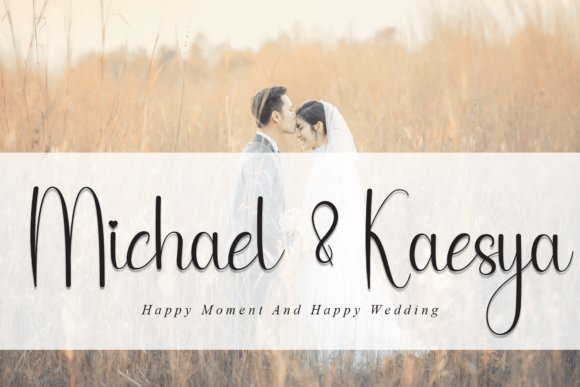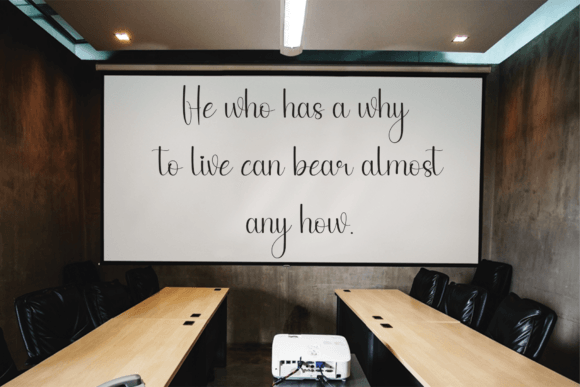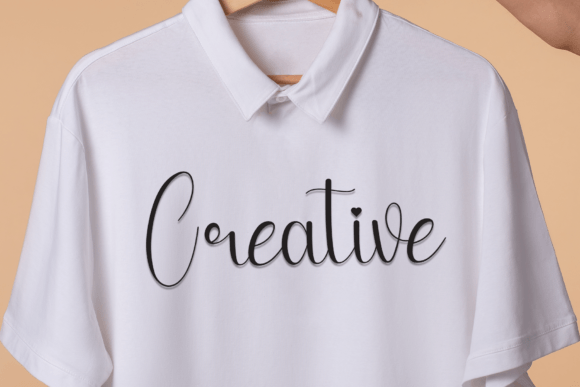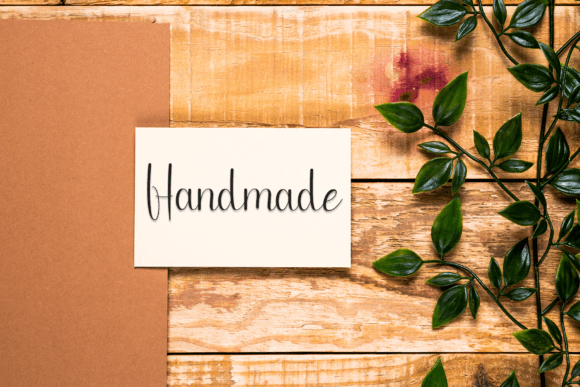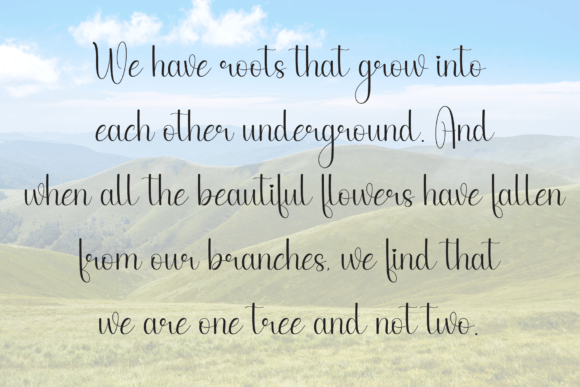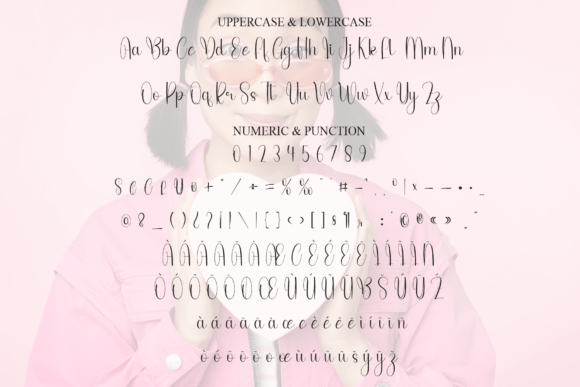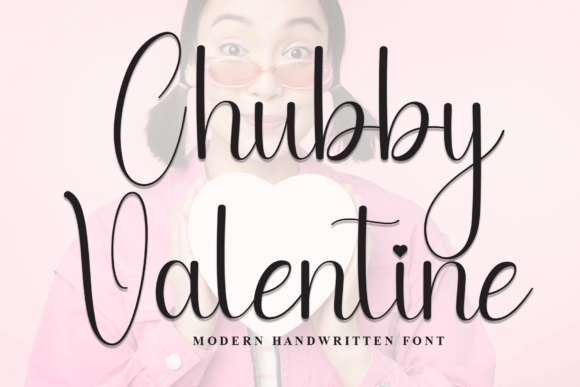
Introducing Chubby Valentine Font: The Epitome of Elegance and Charm
In the world of typography, few fonts manage to capture the essence of elegance and charm as effortlessly as the Chubby Valentine Font. This stylish handwritten script font has been making waves in the design community, and for good reason. Its fluid, graceful strokes exude a sense of sophistication and refinement, making it the perfect addition to any design project that requires a touch of class.
The Characteristics of Chubby Valentine Font
So, what sets Chubby Valentine Font apart from other fonts in its class? For starters, its smooth curves and natural flow create a timeless, refined look that is hard to achieve with more traditional fonts. The fluid strokes of Chubby Valentine Font give it a sense of movement and energy, making it perfect for designs that require a bit of dynamism.
Another key characteristic of Chubby Valentine Font is its versatility. Whether you’re working on a branding project, creating invitations, or designing stationery, this font is sure to impress. Its elegant and charming aesthetic makes it suitable for a wide range of applications, from formal events to more casual designs.
Perfect for Branding, Invitations, and Stationery
Chubby Valentine Font is particularly well-suited for branding projects, as it adds a personal and sophisticated touch to any logo or design. Its unique and stylish aesthetic helps to create a lasting impression, making it perfect for businesses looking to establish a strong brand identity.
When it comes to invitations and stationery, Chubby Valentine Font is equally at home. Its elegant and refined aesthetic makes it perfect for formal events, such as weddings and galas, while its more playful and charming side makes it suitable for more casual gatherings and celebrations.
Why Designers and Crafters Love Chubby Valentine Font
So, why have designers and crafters fallen in love with Chubby Valentine Font? For one, its unique and stylish aesthetic makes it a standout in a sea of more traditional fonts. Its versatility and range also make it a favorite among designers, who appreciate the ability to use it in a wide range of applications.
Another reason designers and crafters love Chubby Valentine Font is its ability to add a personal touch to any design. In an era of digital design, where so much of our communication is reduced to cold, impersonal type, Chubby Valentine Font offers a refreshing respite. Its elegant and charming aesthetic helps to create a sense of warmth and connection, making it perfect for designers looking to add a bit of personality to their work.
Tips for Using Chubby Valentine Font
• Use it sparingly: While Chubby Valentine Font is certainly a beautiful font, it can be overwhelming if used too much. Use it sparingly to add a touch of elegance and charm to your design.
• Experiment with different colors: Chubby Valentine Font looks stunning in a range of colors, from classic black and white to more bold and bright hues. Experiment with different colors to find the perfect look for your design.
• Pair it with other fonts: Chubby Valentine Font pairs beautifully with other fonts, particularly those with a more traditional or serif aesthetic. Experiment with different pairings to find the perfect combination for your design.
In conclusion, Chubby Valentine Font is a truly special font that offers a unique and stylish aesthetic to any design project. Its fluid, graceful strokes and smooth curves create a timeless, refined look that is perfect for branding, invitations, and stationery. Whether you’re a designer or crafter, Chubby Valentine Font is sure to become a favorite in your toolkit. So why not give it a try and see the magic for yourself?